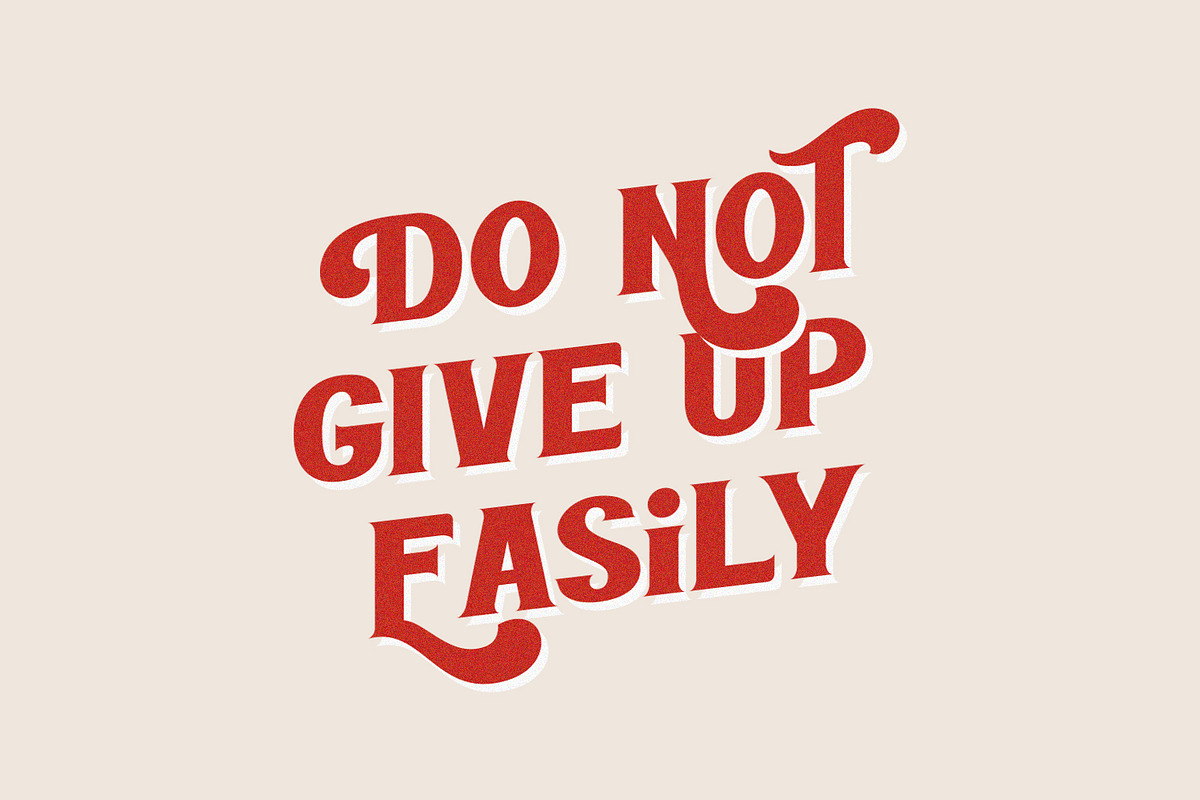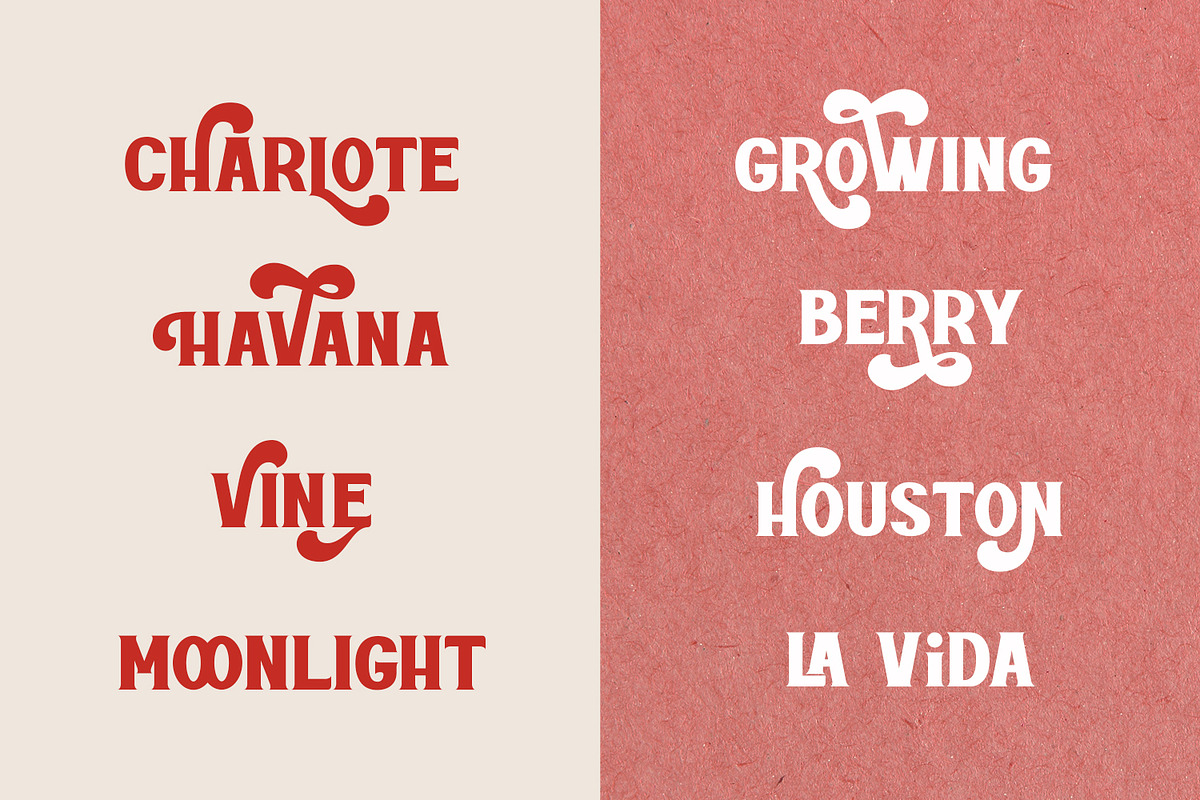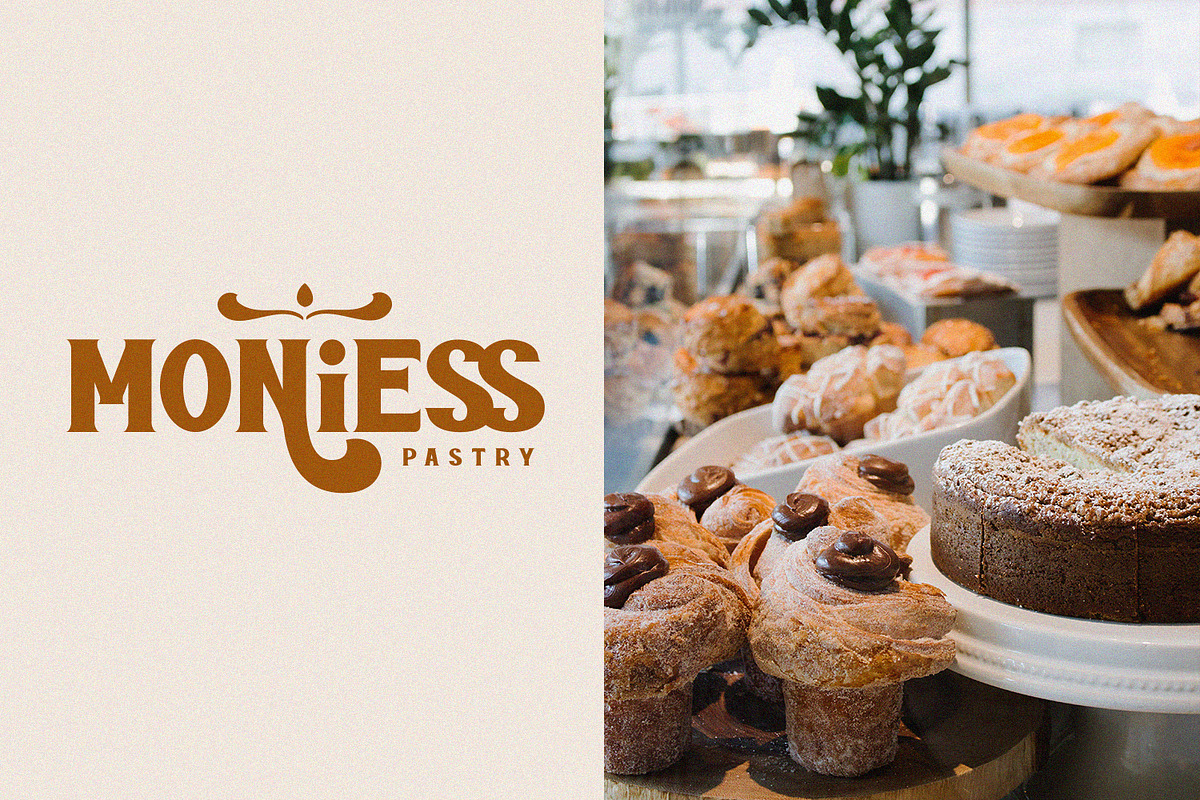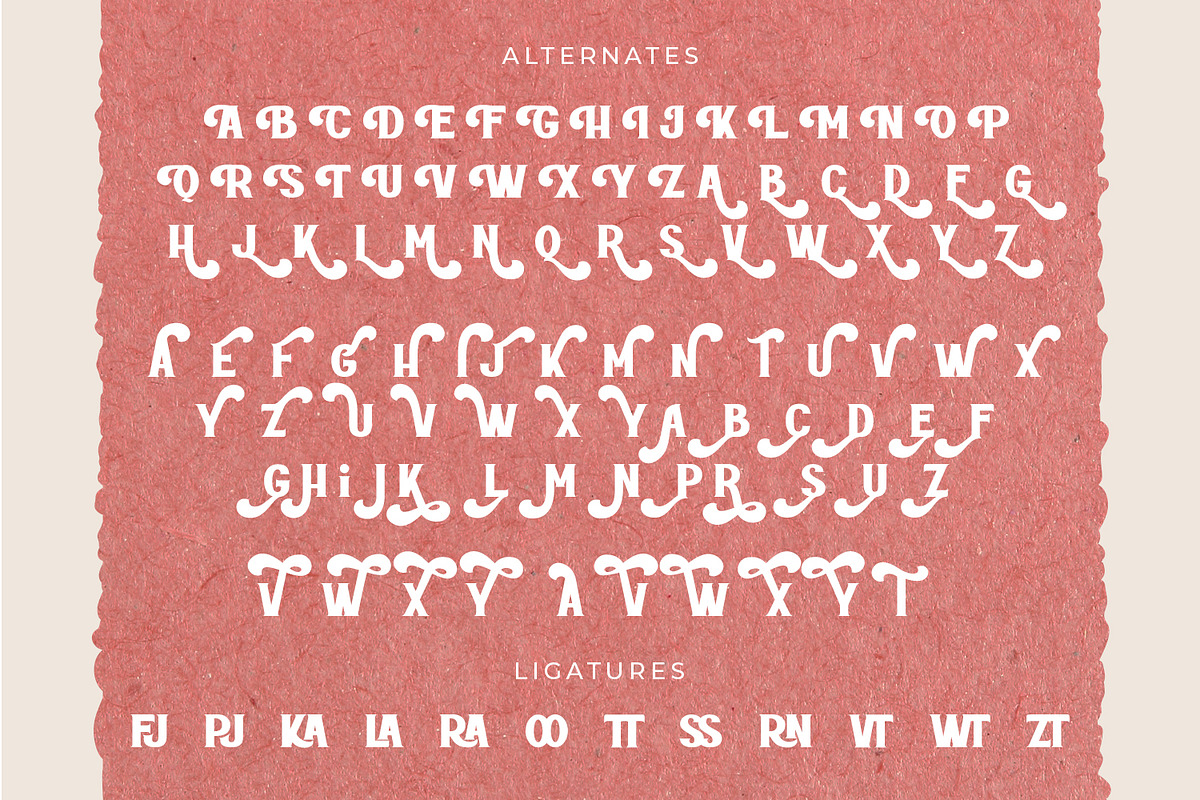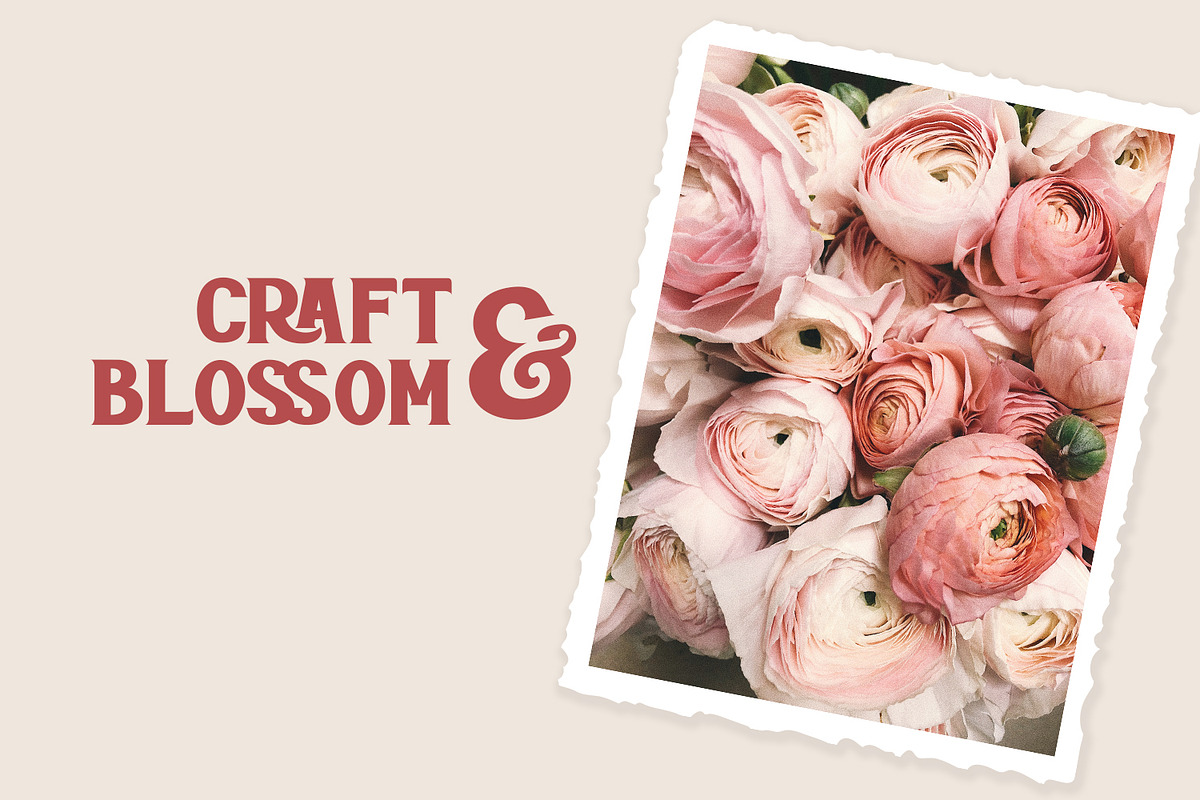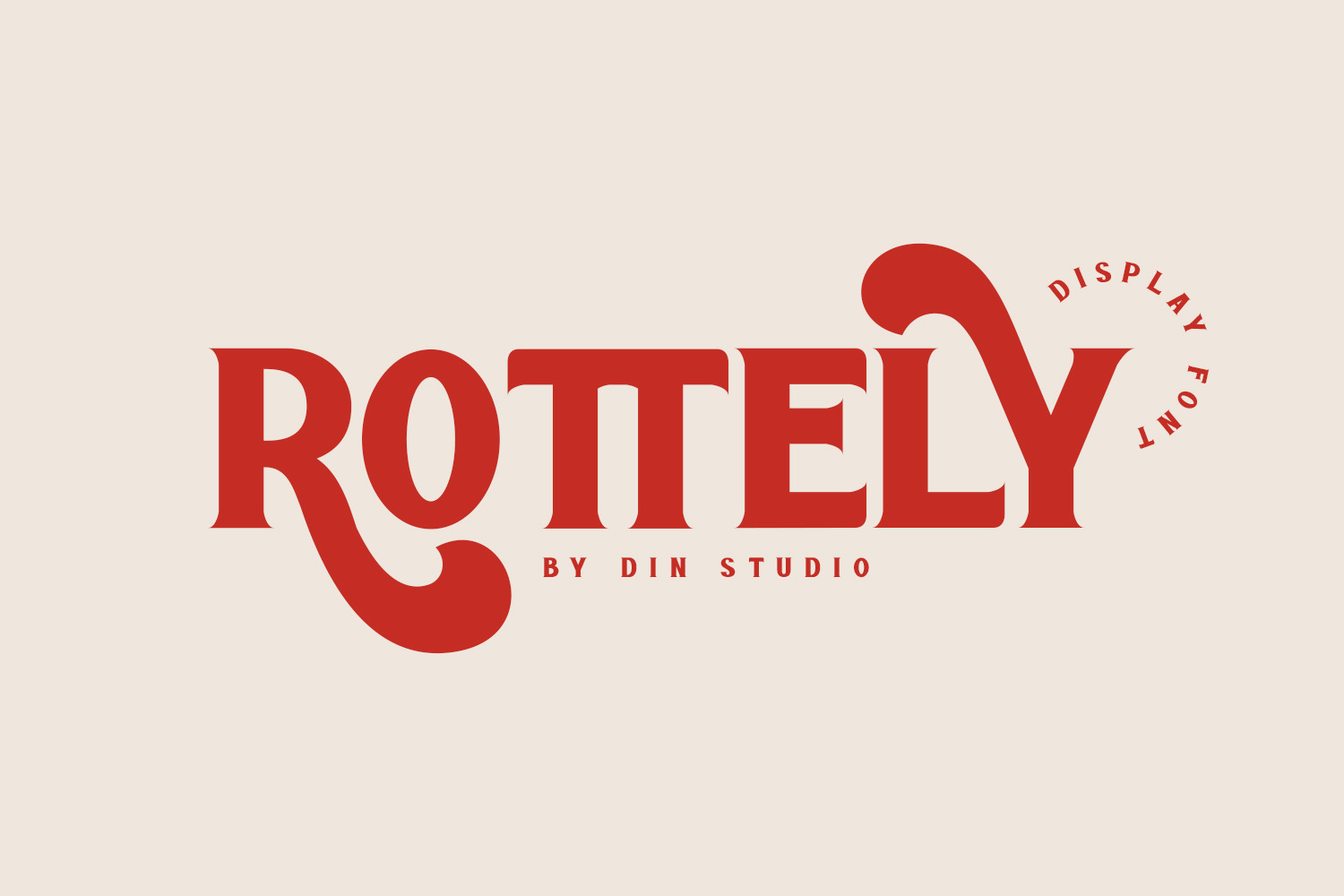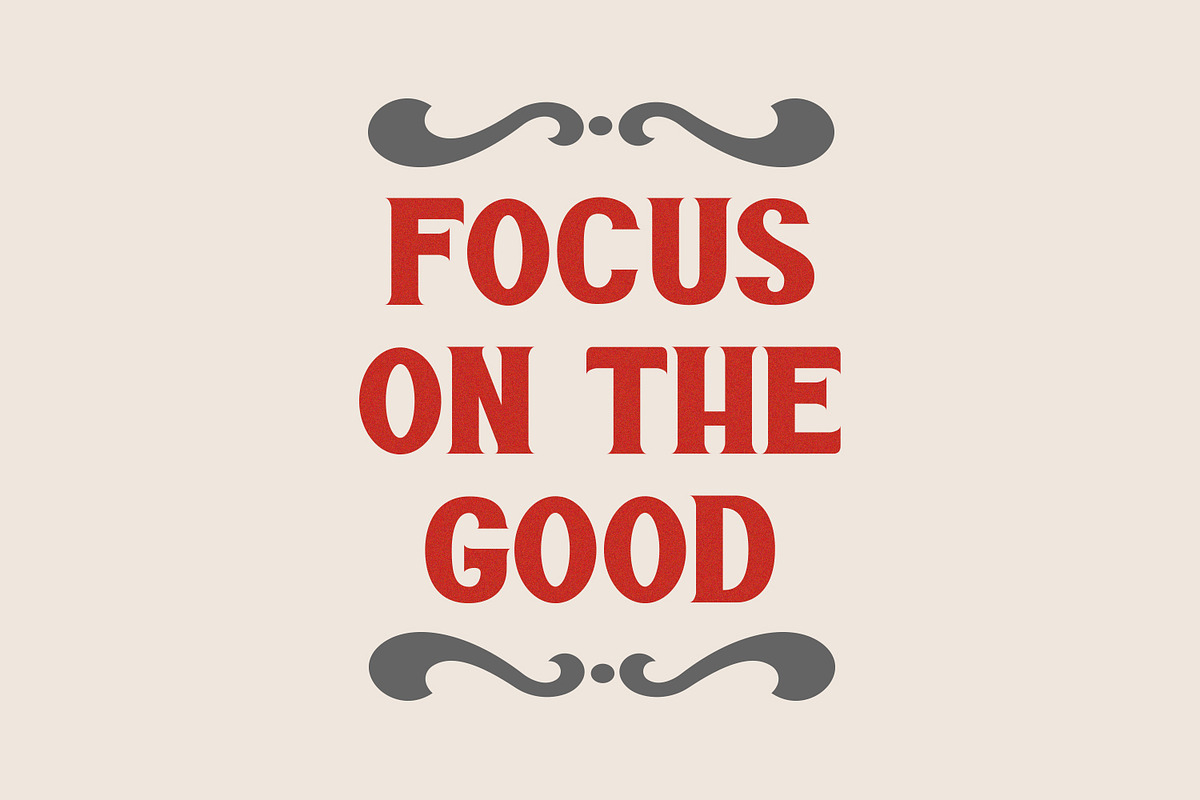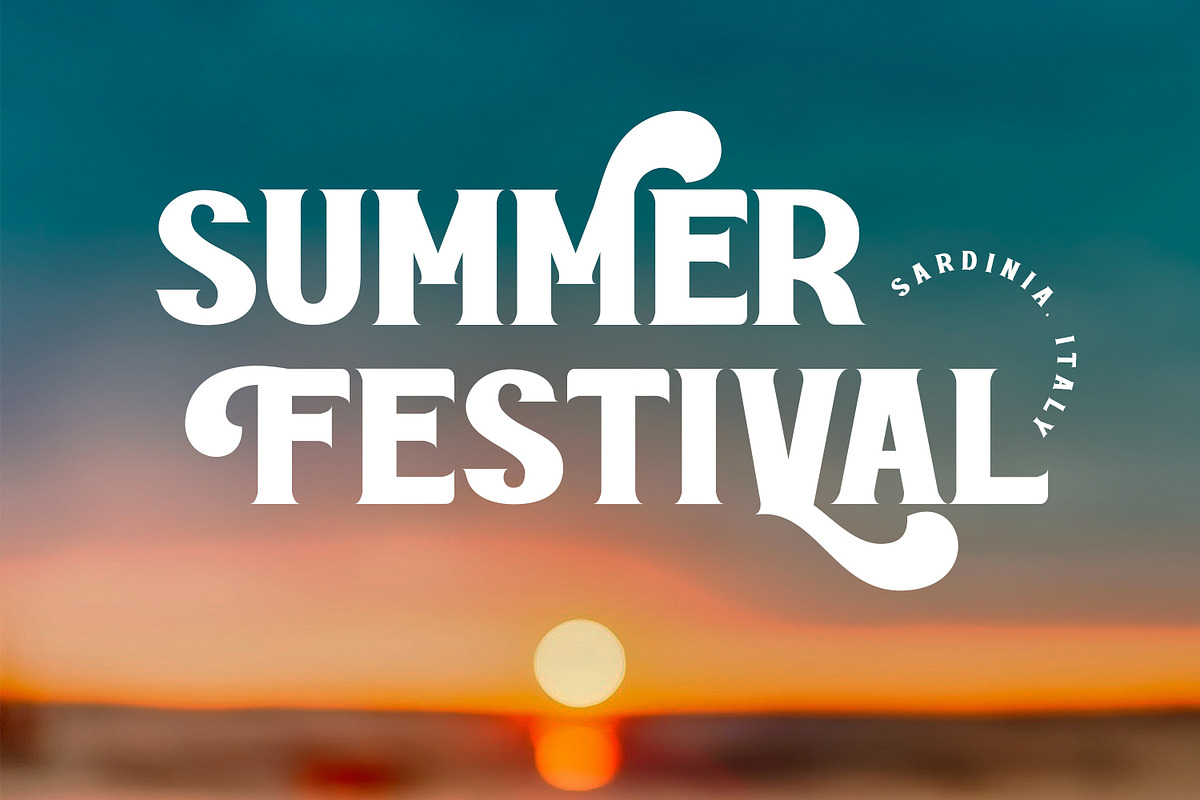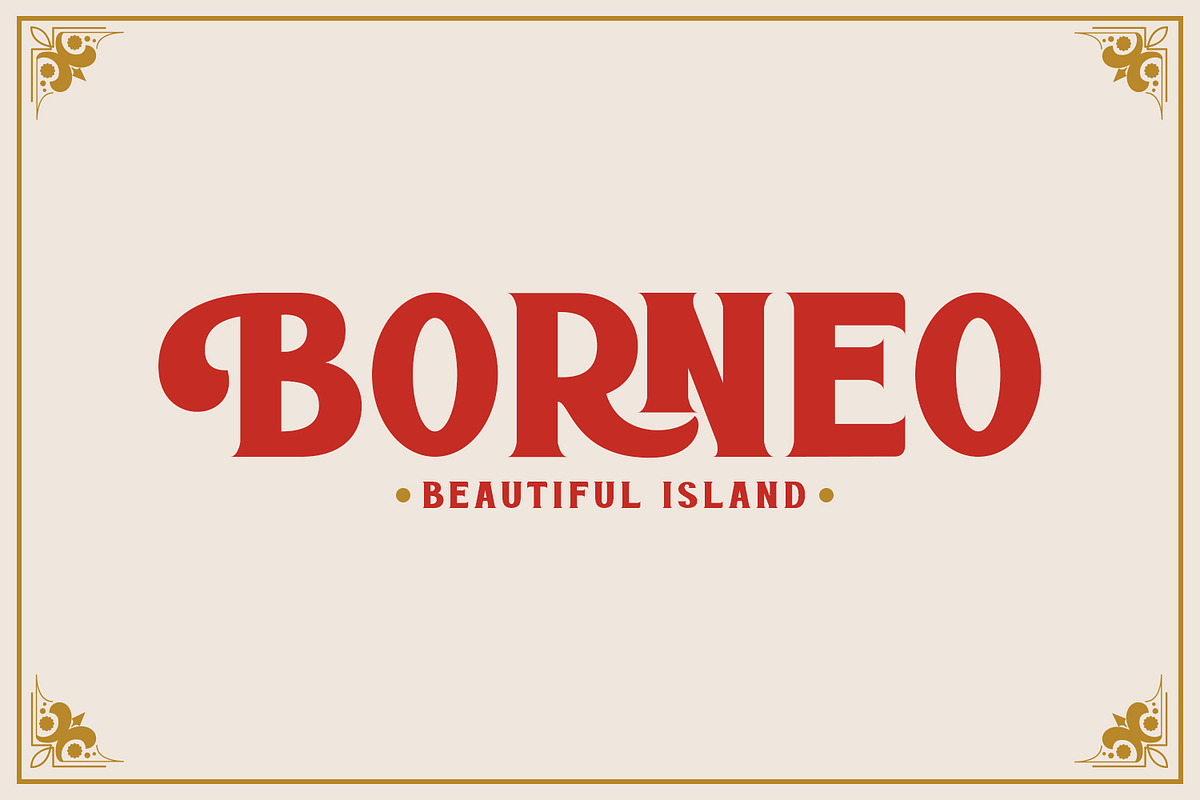
ROTTELY - DISPLAY FONT
Say hello to Rottely Display Font, Rottely is a beautiful display font (Uppercase letters), designed with a modern and bold style. It's suitable for various designs, such as posters, banners, logos, book covers, headings, printed products, merchandise, social media, and more. Find out more ways to use this font by taking a look at the font preview.
- 12 Ligatures
- 97 Alternates